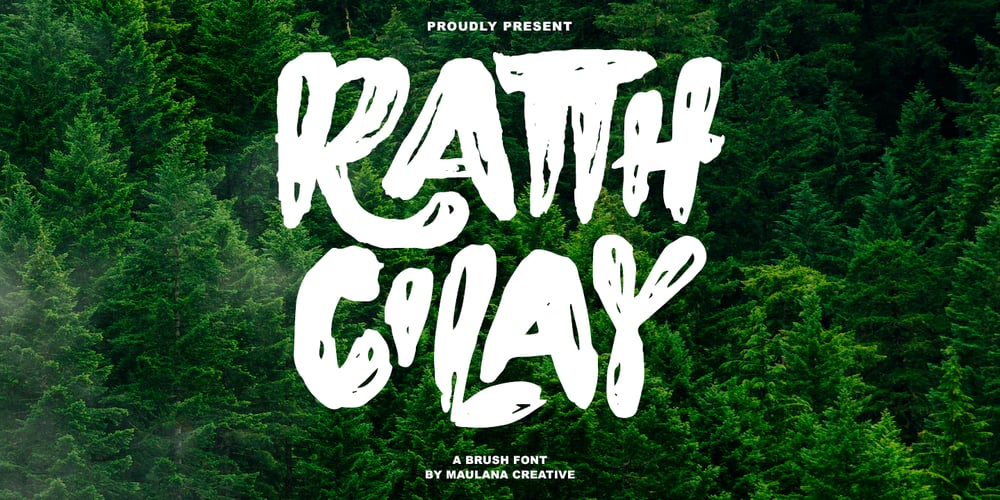
MC Ratth Cilay Font Family was designed by Gilang Maulana and published by Maulana Creative. MC Ratth Cilay contains 1 styles and family package options. Ratth Cilay brush handmade font. This font is good for logo design, Social media, Movie Titles, Books Titles, a short text even a long text letter and good for your secondary text font with signature or script typeface. Make a stunning work with Ratth Cilay handmade brush font.Cheers,Maulana Creative